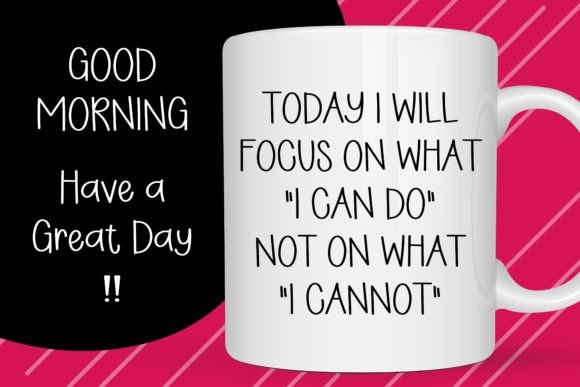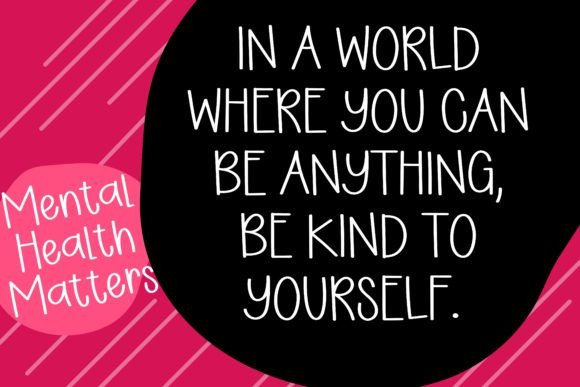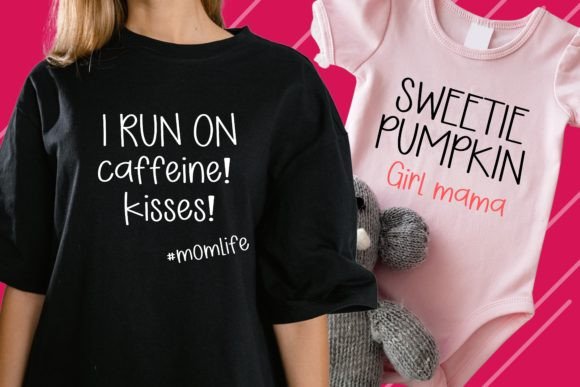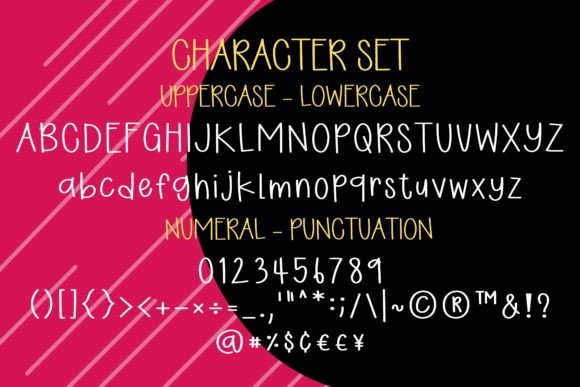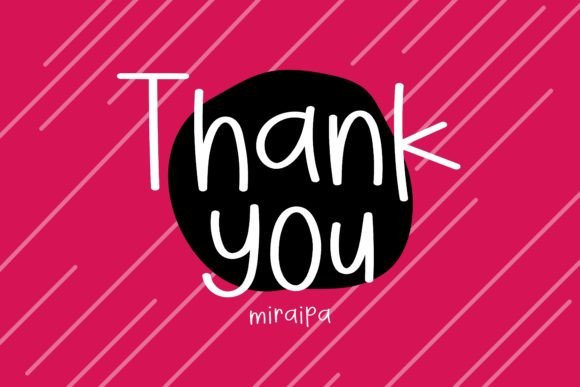
Introduction to Pinky Funky Font
Have you ever been in the middle of a creative project, staring at a blank page, trying to decide on the perfect font to bring your vision to life? That’s exactly where I was when I stumbled upon the delightful Pinky Funky Font. Its charming, whimsical design is the perfect addition to any project that needs a friendly touch.
As a designer, I know how valuable it is to have a diverse range of fonts at our disposal. That’s why I’m excited to share with you the Pinky Funky Font, a high-quality design resource that’s perfect for a variety of creative projects. With its transparent background and free download option, it’s easy to incorporate into your next design.
Whether you’re working on a DIY project, a blog post, or a social media campaign, the Pinky Funky Font is sure to add a playful and creative touch to your design.
Key Features of Pinky Funky Font
- Unique, hand-drawn design perfect for creative projects and artistic expressions.
- Comes with a transparent background, allowing for seamless integration with any design resource.
- High-quality font with clear and readable characters, ideal for various design applications.
- Designed at a high resolution (300 DPI) for crisp and clear display in various sizes.
Honest Review: Pinky Funky Font
I recently stumbled upon the Pinky Funky Font, and I have to say, it’s been a game-changer for my creative projects. This design resource offers a unique blend of fun and sophistication, making it perfect for anything from kids’ books to fashion brands.
Here are some things that work well with the Pinky Funky Font: ✨ It comes with a transparent background, making it super easy to use with any design. ✨ The font is available for free download, which is a huge plus for designers on a budget. ✨ The quality is top-notch, with crisp and clean lines that make it perfect for print or digital use.
- Highly versatile and suitable for a wide range of creative projects
- Unique and playful style that adds a touch of personality to any design
- Easy to use with any design software or tool
However, there are a few limitations to keep in mind: ⚠️ The font is a bit limited in terms of customization options, which might be a bummer for designers who like to get creative. ⚠️ It’s not suitable for formal or professional projects, as it can come across as a bit too playful.
Overall, I’m really impressed with the Pinky Funky Font. It’s a fantastic addition to any designer’s toolkit, and I can see myself using it again and again for my creative projects. If you’re looking for a fun and high-quality font, I’d definitely recommend giving it a try.
Tips for Getting the Most Out of Pinky Funky Font
For the best results, use the Pinky Funky Font on a transparent background to ensure maximum flexibility in your design project. This versatile font is perfect for creative projects, and its high-quality design will elevate your work.
The Pinky Funky Font is ideal for various design projects, including social media graphics, logos, posters, and business cards. Its unique design and high-quality resolution make it a valuable design resource for creatives.